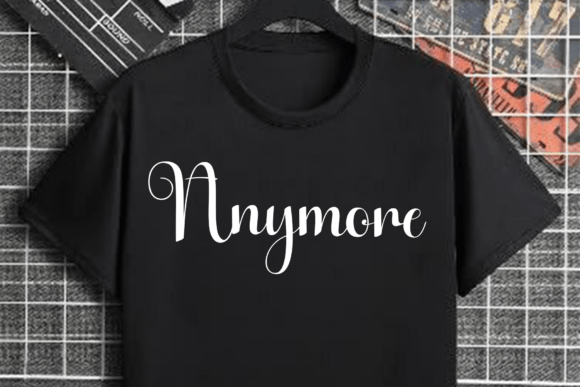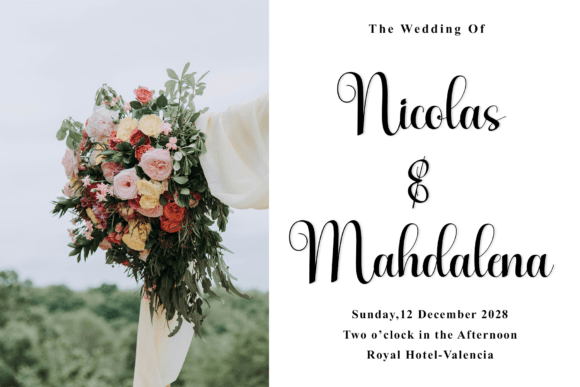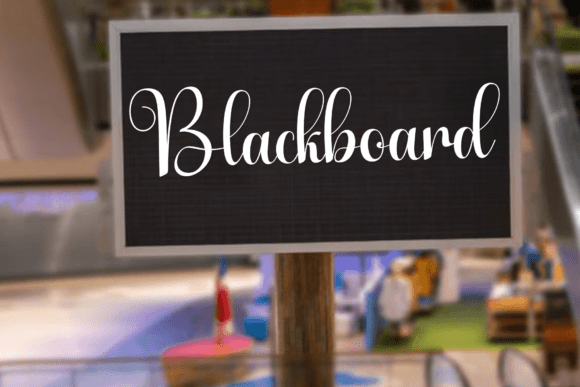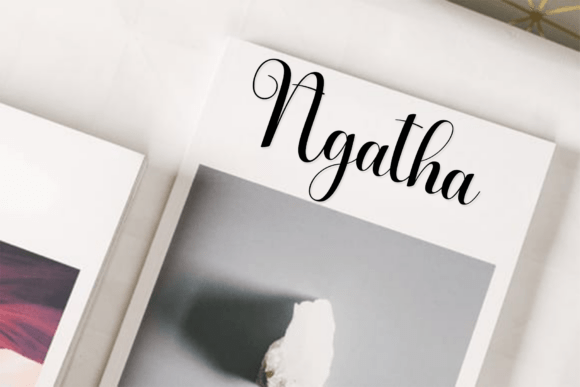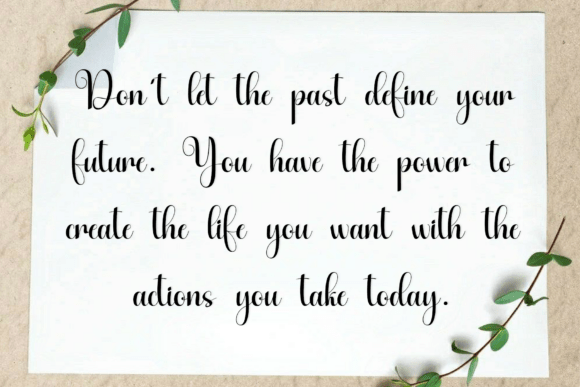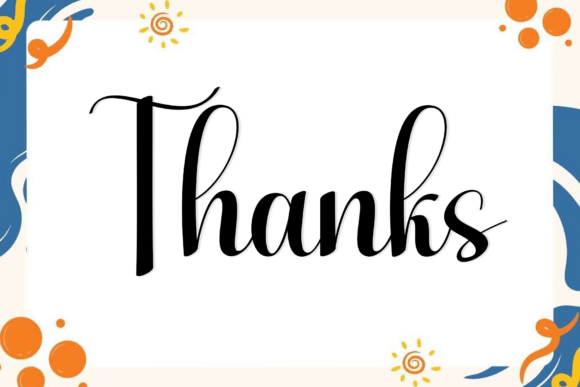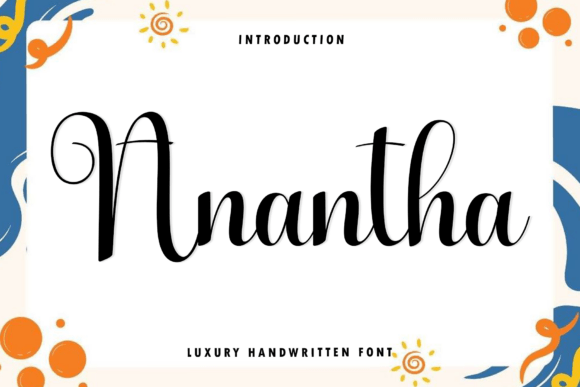
The Ultimate Guide to Anantha Font: Elevate Your Design with Luxury Flair
I’ll never forget the time I was working on a luxury branding project for a high-end jewelry client. I had spent hours scouring font libraries and marketplaces, but nothing seemed to capture the perfect blend of sophistication and playfulness. That was until I stumbled upon the Anantha font. With its bold, confident strokes and delicate flourishes, it was love at first sight! ✨ In this article, I’ll dive into the world of Anantha, exploring its unique features, uses, and tips for getting the most out of this stunning font.
What Makes Anantha Font So Special?
Anantha is a luxury handwritten font that exudes a sense of playful confidence and high-fashion flair. This font combines thick, bold strokes with delicate, fine-line flourishes, creating a dynamic visual contrast that is hard to ignore. The Anantha typeface is ideal for luxury branding, upscale event invitations, and statement editorial titles. What sets Anantha apart is its “luxury-meets-handmade” vibe, making it perfect for artisan products that want to command a premium price.
Here’s what I love about Anantha:
- ✨ Unique and eye-catching design: Anantha’s bold strokes and delicate flourishes make it stand out from other fonts.
- ✅ Highly versatile: Suitable for luxury branding, event invitations, editorial titles, and more.
- 💫 Luxury-meets-handmade vibe: Perfect for artisan products and high-end designs.
And here are some minor quirks to consider:
- 🤔 May require additional design effort: Anantha’s intricate details can be overwhelming if not balanced with simpler design elements.
- ⚠️ Not ideal for body text: Due to its decorative nature, Anantha is best used for headlines and titles.
The Story Behind Anantha Font
Anantha was designed by a team of skilled typographers who aimed to create a font that would capture the essence of luxury and high-end design. Inspired by traditional calligraphy and modern digital design, Anantha combines the best of both worlds to create a truly unique and eye-catching typeface.
| Author | Creatype Designer |
| What is Anantha font best used for? | Anantha is ideal for luxury branding, upscale event invitations, statement editorial titles, and high-end designs. |
In conclusion, Anantha font is a stunning luxury handwritten font that can elevate your design to new heights. With its unique blend of bold strokes and delicate flourishes, it’s perfect for high-end designs, luxury branding, and upscale event invitations. By following the practical guide and tips outlined in this article, you’ll be able to get the most out of Anantha and create stunning designs that leave a lasting impression.